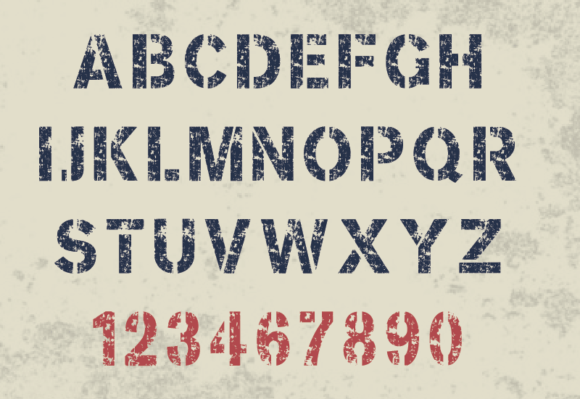
Introduction to Hard Grunge Font
Remember the thrill of creating something truly unique? The moment when your design comes together and you know you’ve nailed it? For designers, that rush is what keeps us going. And sometimes, all it takes is the right font to elevate your project from ordinary to extraordinary. That’s where the Hard Grunge Font comes in – a game-changing design resource that’s about to take your creative work to the next level.
This high-quality font is more than just a pretty face; it’s a statement-maker with an edgy, raw design that’s guaranteed to turn heads. With its rough lines and distressed texture, the Hard Grunge Font is perfect for anything that demands a touch of boldness and individuality – from posters and album covers to streetwear branding.
Key Features of Hard Grunge Font
- High-quality, distressed font design perfect for creative projects that require a gritty, edgy look.
- Unique, hand-crafted design elements, such as worn textures and faded lettering, add a touch of authenticity to your creative project.
Honest Review: Hard Grunge Font
As a designer, I’m always on the lookout for high-quality design resources to elevate my creative projects. The Hard Grunge Font is a great addition to my collection, and I’m excited to share my thoughts on it.
- ✨ The font is incredibly versatile and can be used for a variety of design projects, from music-inspired themes to urban landscapes.
- ✨ The high-quality design ensures that the font looks sharp and clear, even at large sizes.
- ⚠️ The font may not be suitable for projects that require a transparent background, as the texture can be quite prominent.
- ⚠️ Some users may find the font’s distressed aesthetic to be too bold or overwhelming.
Overall, I’m impressed with the Hard Grunge Font and would definitely recommend it to designers looking for a unique and high-quality design resource. While it may have some limitations, it’s a great addition to any design collection.
The Hard Grunge Font is a high-quality design resource ideal for creative projects that require a rugged, edgy look. This free download is perfect for designers and artists looking to add a touch of grunge to their work.
The Hard Grunge Font is commonly used in designs that require a rugged, edgy look, such as:
Rock music posters
Skateboard designs
Grunge-inspired fashion designs